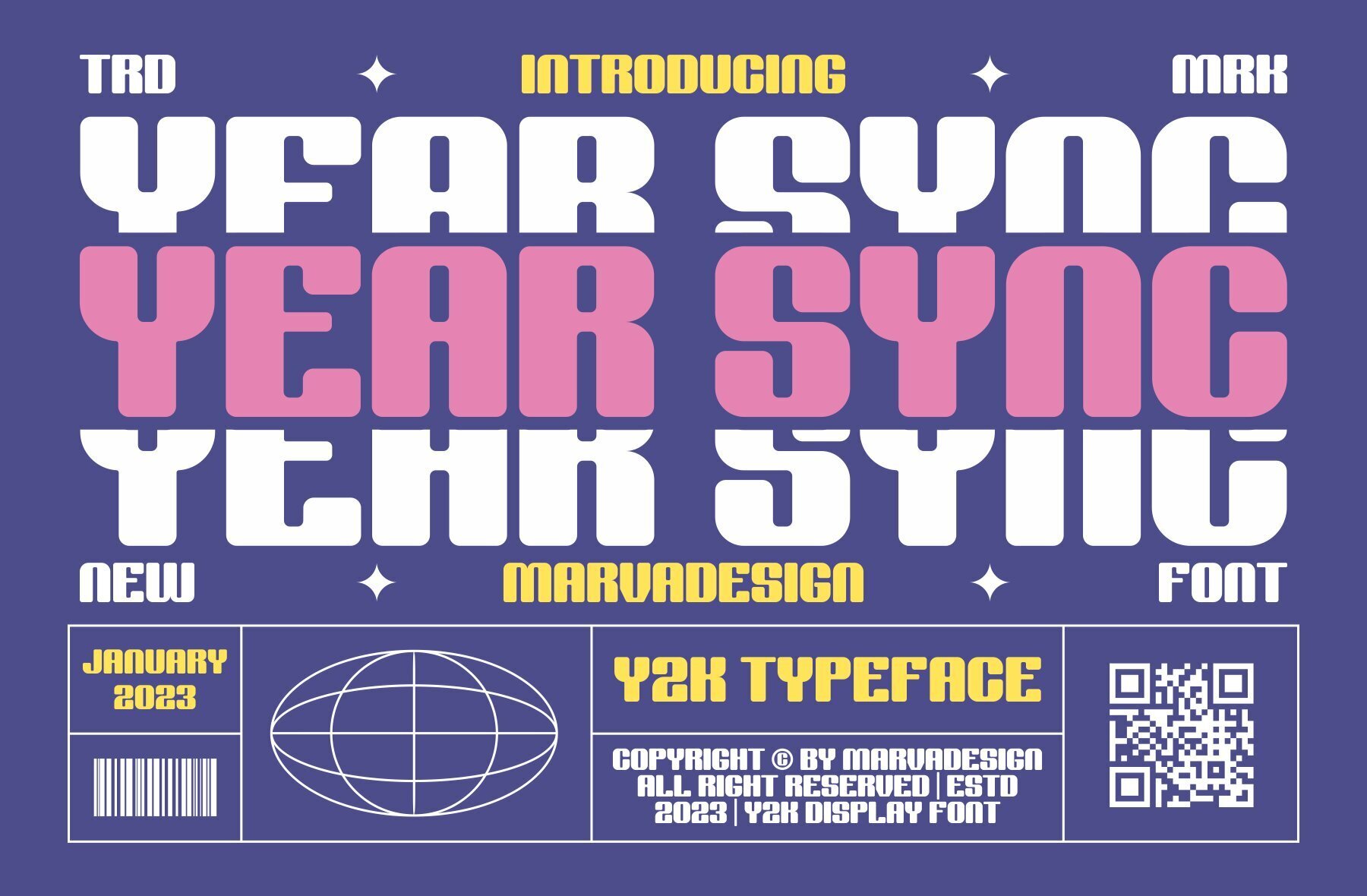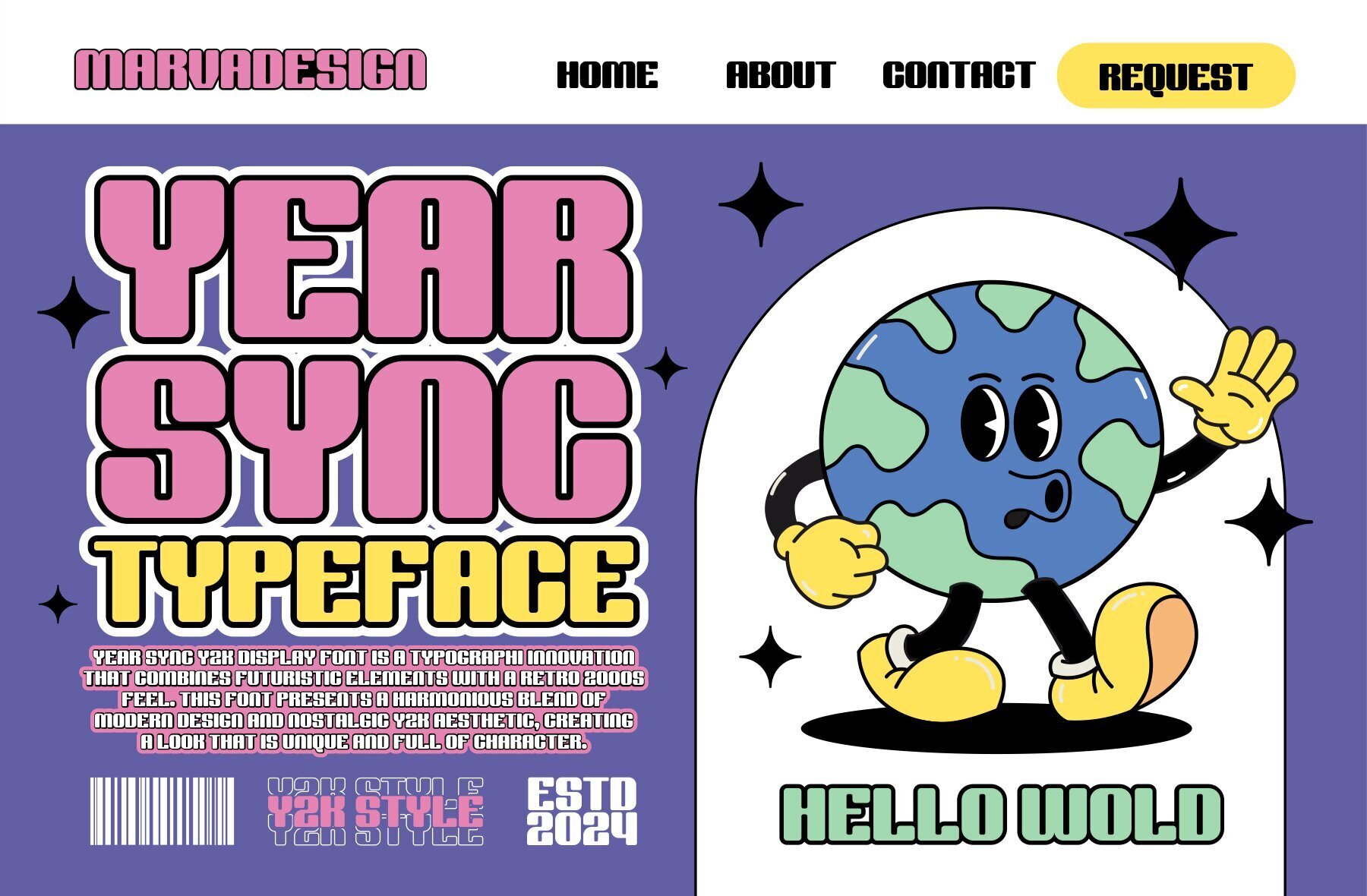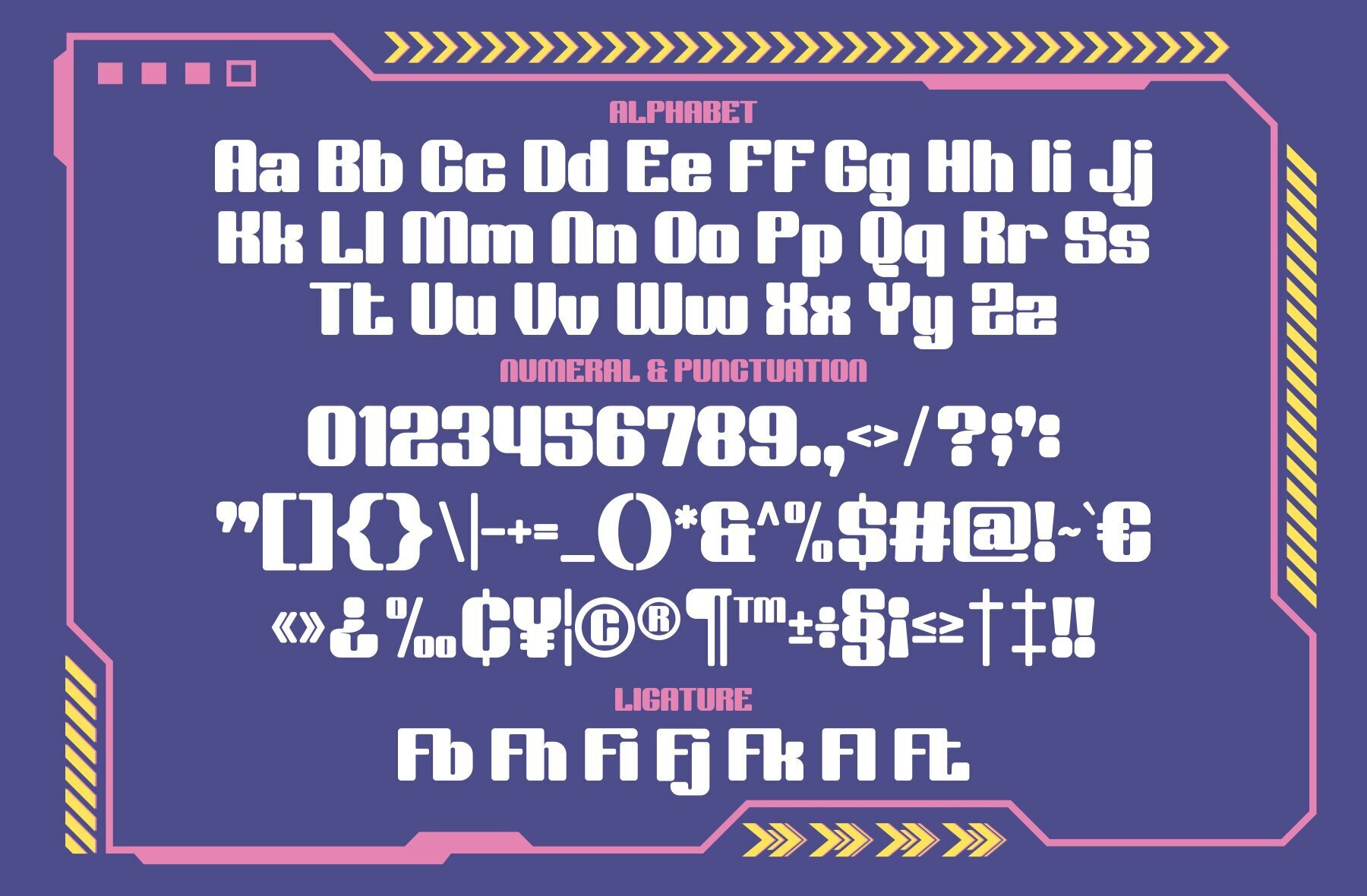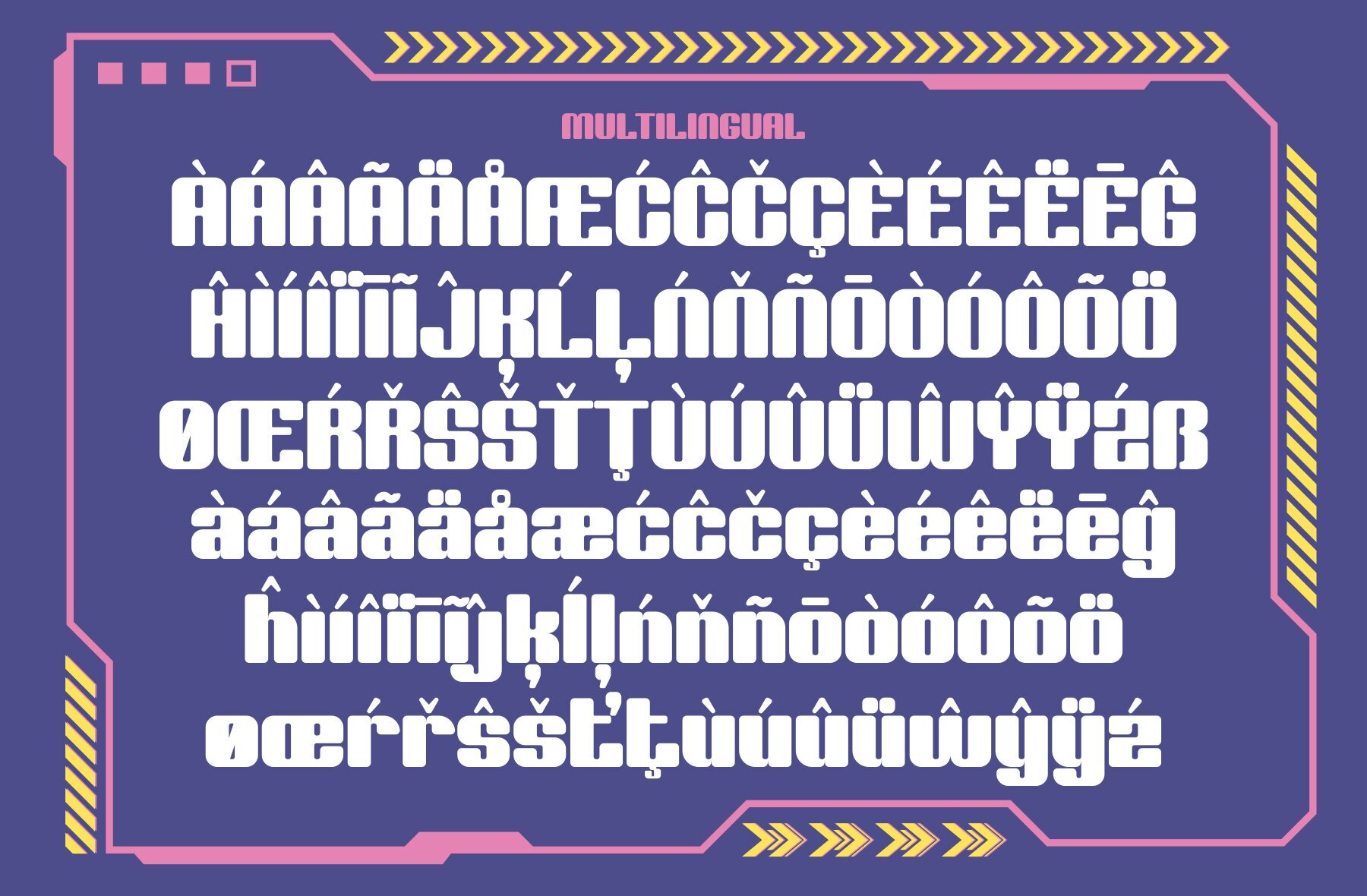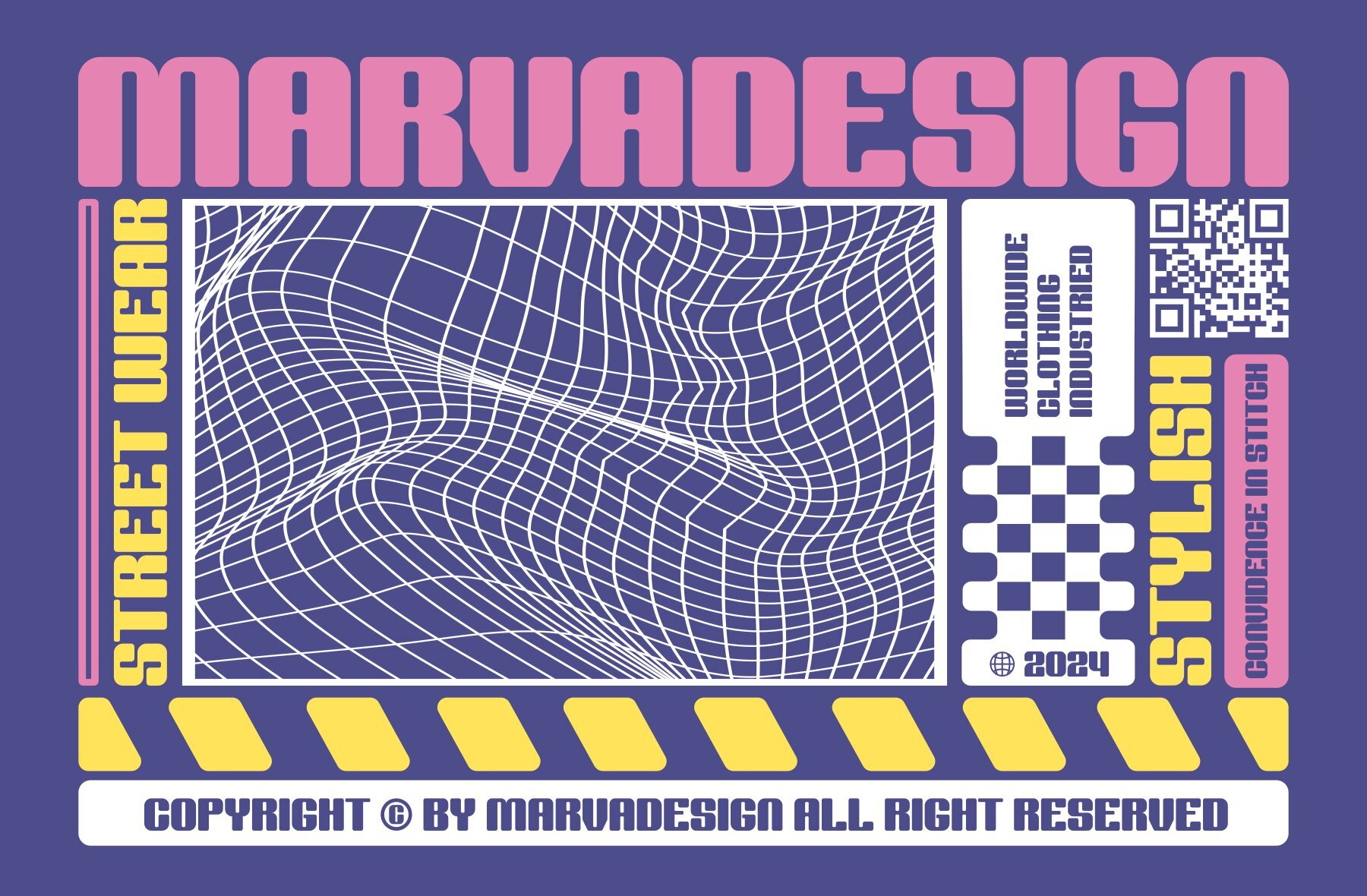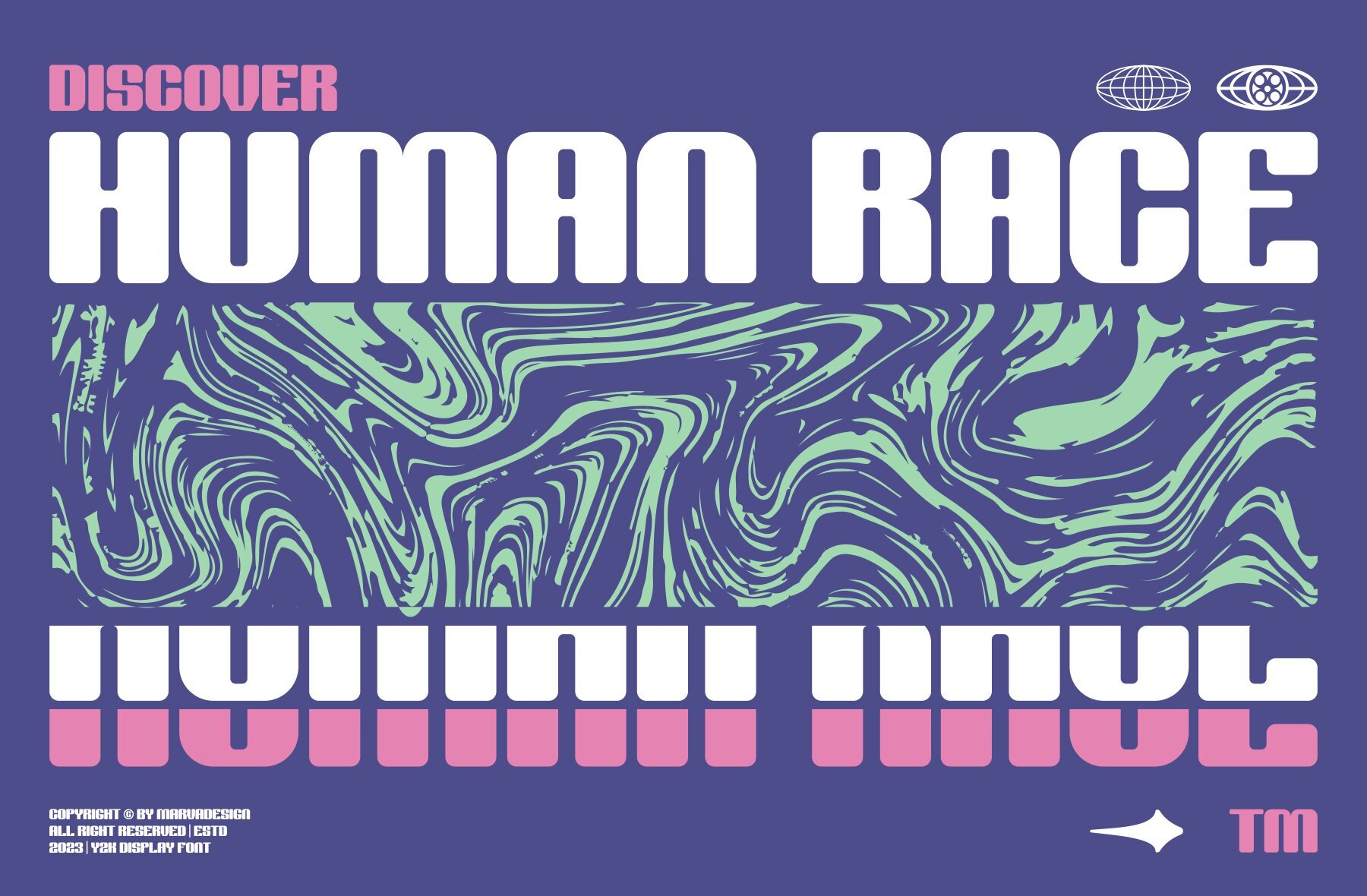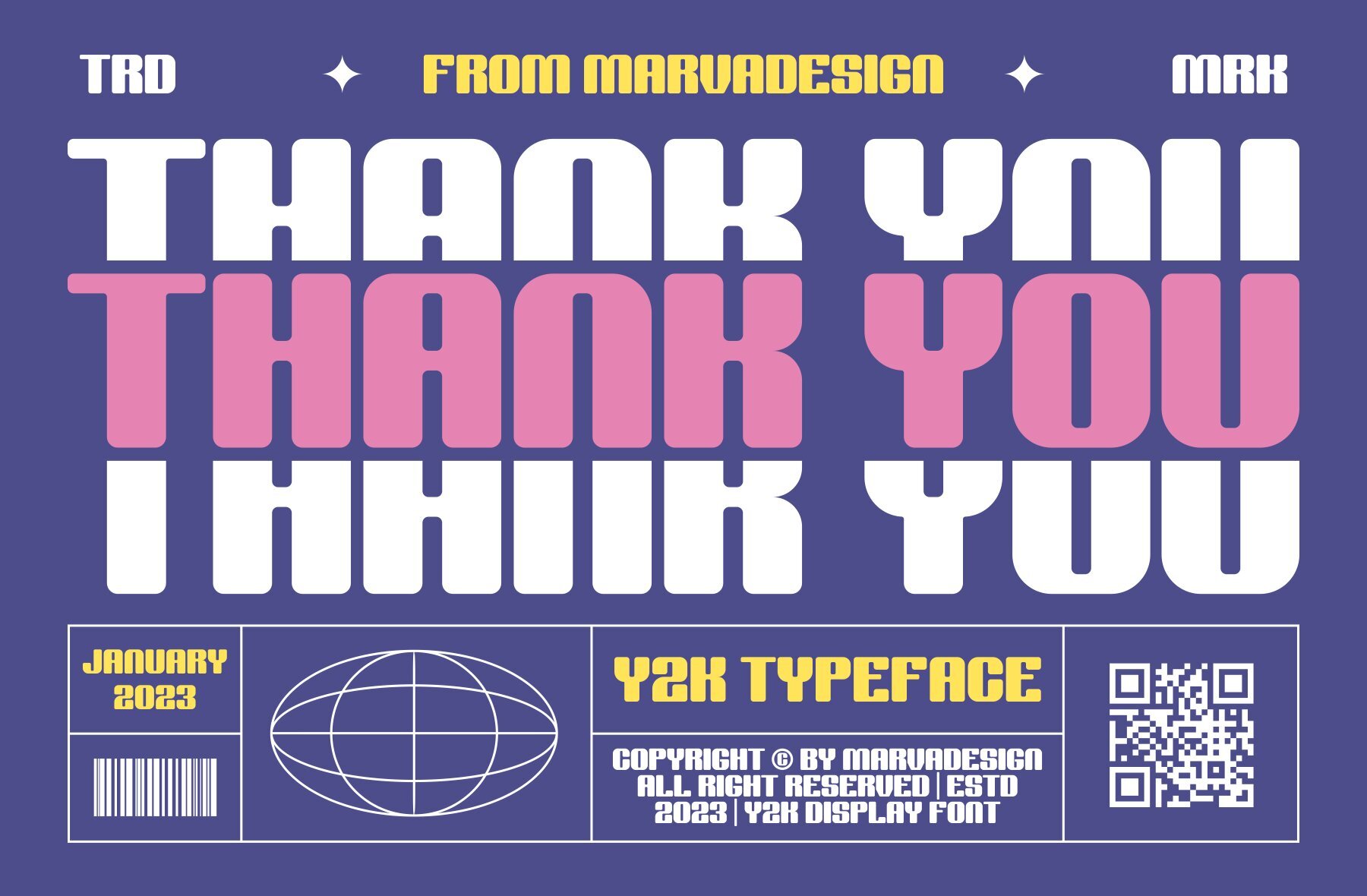
Year Sync Font
Year Sync Regular
Year Sync is a distinctive display font perfect for capturing the essence of the Y2K era with a modern twist. This font is ideal for branding projects, including logos, template designs, and a variety of other applications, offering exceptional versatility in numerous contexts.Year Sync: A Modern Y2K Display Font